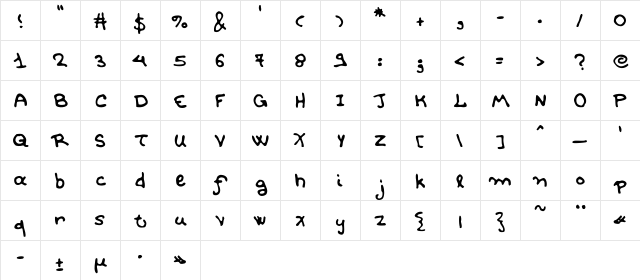
BPchildFatty Regular
Design Context for BPchildFatty Typeface
BPchildFatty trades formality for fun, with bouncy, characterful letterforms that bring warmth and energy to any project.
Font Pairing: Pairs well with a rounded or humanist sans for body copy, maintaining the friendly tone without relying on BPchildFatty to carry extended reading.
Pro Tip: Use BPchildFatty at larger display sizes where its expressive character can land. Pair with a clean, simple sans for body copy to maintain readability.